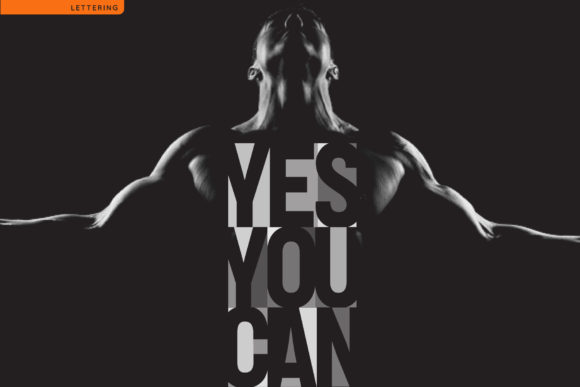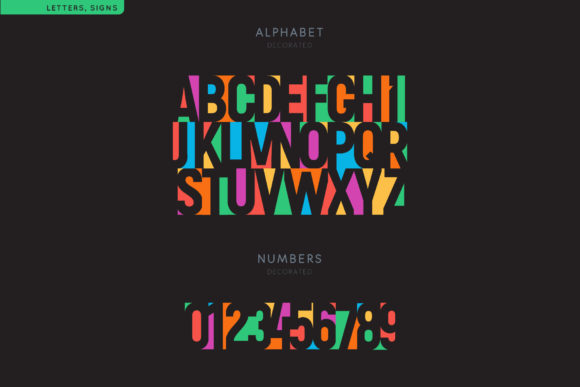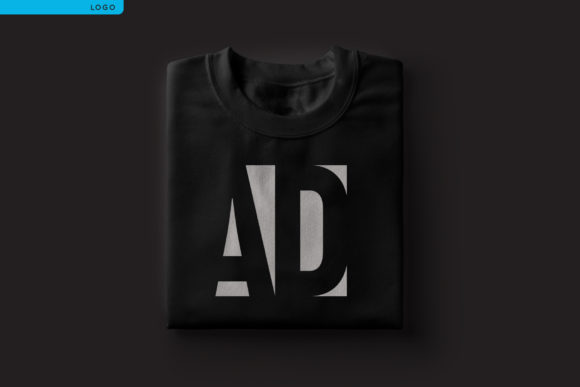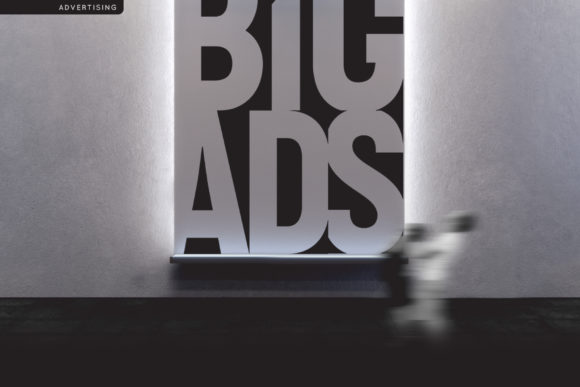
Introduction to Color Paper Font
Color Paper is a beautiful display font.
It was made using the negative space of letters and it looks amazing Unfold the full potential of this font, experiment with the color and get pleasant impressions.
Key Features of Color Paper Font